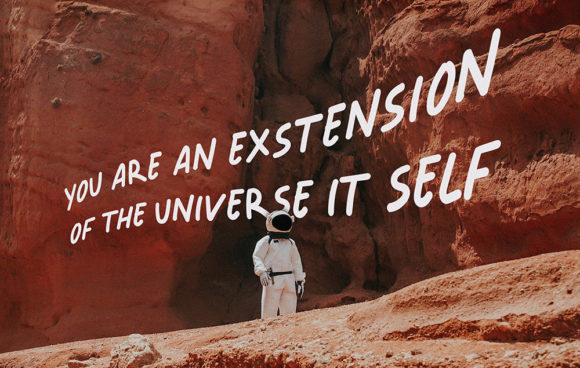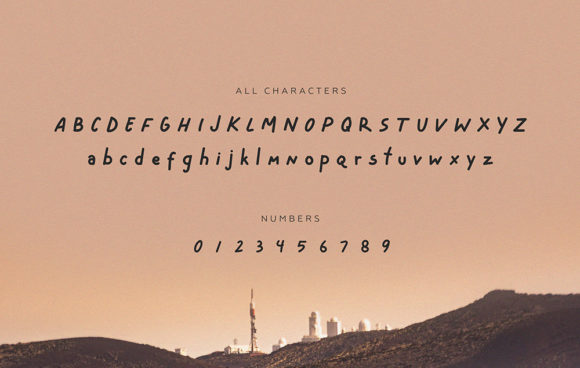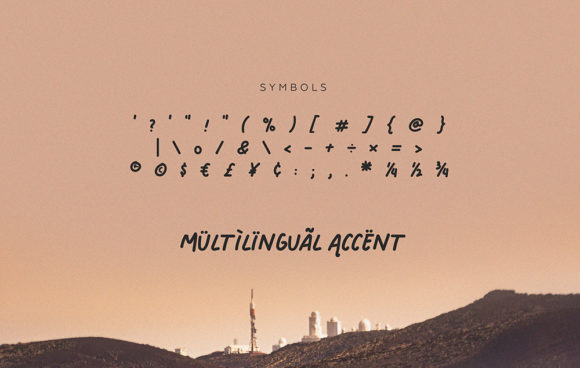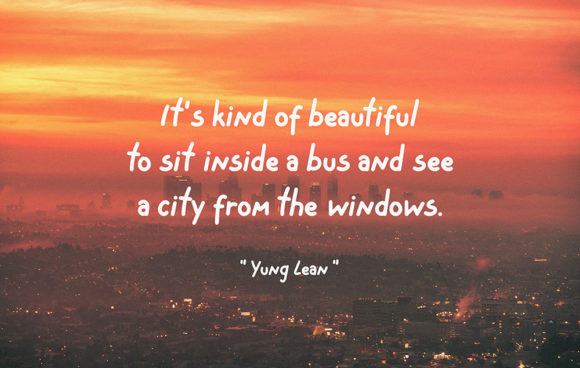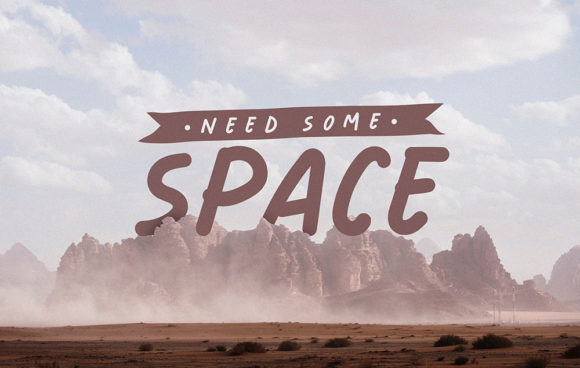
Space in Mars Font
About Space in Mars Font
Space in Mars is a simple, casual and laid-back handwritten font. Whatever the topic, this font will be a wonderful asset to your font library, as it has the potential to enhance any creation.